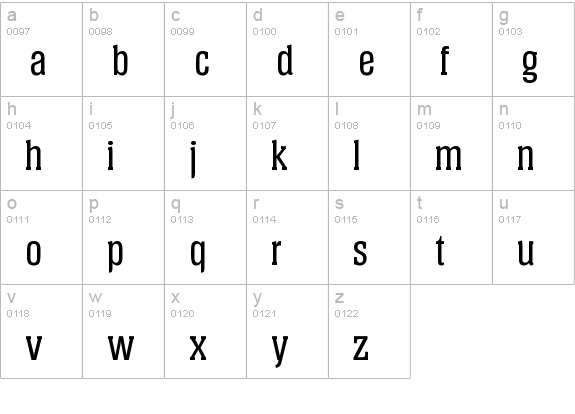
HeliumSerial-Medium-Regular is a balanced, medium-weight variant in the HeliumSerial typeface family \xE2\x80\x94 well suited to sub-headlines, navigation, and balanced editorial work.
HeliumSerial-Medium-Regular font is a sleek and modern typeface that exudes elegance and sophistication. Its clean lines and balanced proportions make it perfect for a wide range of design projects, from branding to editorial layouts. With a medium weight and regular style, this font strikes the ideal balance between readability and impact, making it versatile and highly adaptable. The best part? HeliumSerial-Medium-Regular font is available for free download at FontsMarket.com, allowing you to elevate your designs without breaking the bank. Whether you're working on a website, a poster, or a business card, this font is sure to make a statement and leave a lasting impression. So why wait? Download HeliumSerial-Medium-Regular font today and take your designs to the next level!